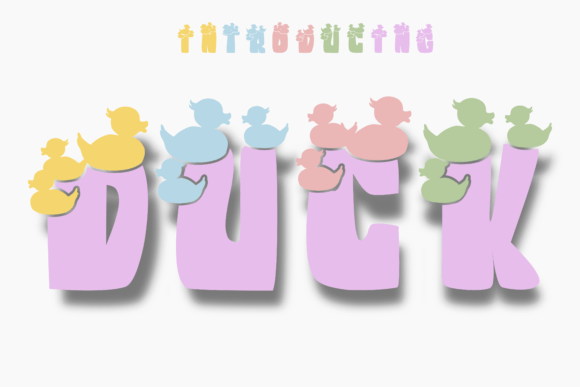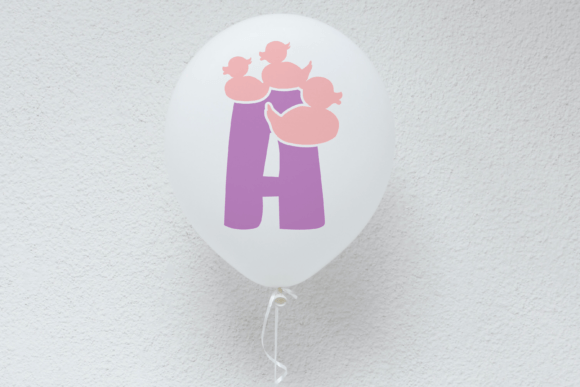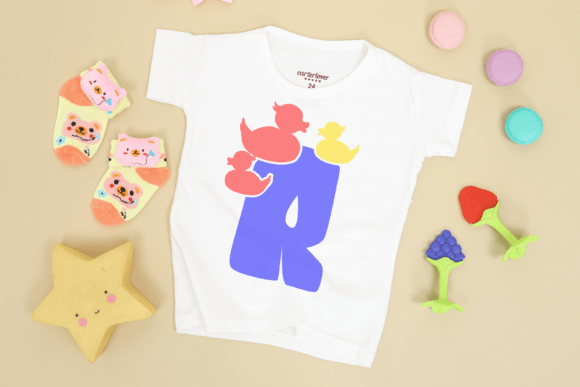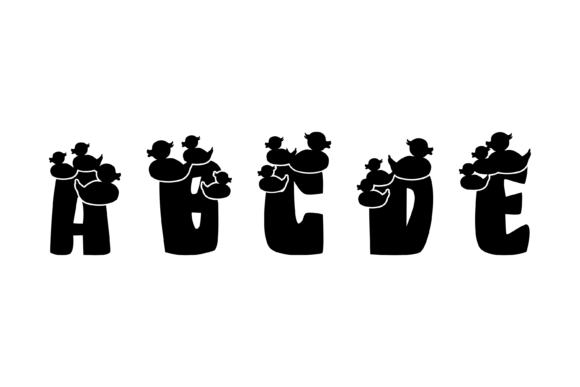
The Quacking Good Font You Need to Know
Meet Duck Font, a beautiful and sweet decorative font that adds a touch of freshness and playfulness to any design. Whether you’re working on a formal school project or an informal kid’s activity creation, Duck Font is the perfect companion to bring your ideas to life. Its versatility and charm make it a valuable addition to any designer’s toolkit, and its ease of use makes it accessible to designers of all levels.
- Unique Characteristics: The font’s playful and whimsical design, featuring a stylized duck character, adds a touch of fun and personality to any text-based project.
Duck Font Review
I recently had the chance to work with the “Duck Font” and I must say, it’s a mixed bag. On the one hand, there are some aspects that really shine ✨.
- Unique Design: The duck font has a quirky, playful design that can add a fun touch to your designs. It’s perfect for children’s books, nursery decorations, or even a cartoon-themed website.
- Legibility: Despite its whimsical design, the font is surprisingly easy to read. It’s clear and concise, making it suitable for body text or headings.
However, there are some limitations to consider ⚠️:
- Limited Customization: The font’s design is quite rigid, making it difficult to customize or alter. If you need to make significant changes, you might find yourself struggling.
- Size Limitations: The font starts to look a bit pixelated when scaled up or down. It’s best used in medium to small sizes to maintain its quality.
Overall, the “Duck Font” is a fun and playful addition to your design toolkit. While it has its limitations, it’s perfect for projects that require a lighthearted, childlike feel. Just be aware of its size and customization limitations, and you’ll be golden.
For optimal results, use the Duck Font for playful and whimsical designs, such as:
- Party invitations
Duck Font is a playful and whimsical font, but it may not be suitable for every design project. Here are a few alternatives that offer similar characteristics.
Great Vibes is a handwritten script font with a relaxed and casual feel. It’s perfect for designs that require a friendly and approachable tone, such as invitations, social media posts, or blog headers.
Compared to Duck Font, Great Vibes has a more organic and natural look, with subtle imperfections that add to its charm. It’s a great choice for designers who want to create a sense of warmth and personality in their designs.
Alex Brush is a beautiful and elegant script font with a sophisticated feel. It’s ideal for designs that require a touch of luxury and refinement, such as branding, advertising, or high-end product packaging.
Unlike Duck Font, Alex Brush has a more refined and polished look, with precise lettering and a classic feel. It’s a great choice for designers who want to create a sense of elegance and sophistication in their designs.
Carolyna Pro is a modern and stylish script font with a bold and confident feel. It’s perfect for designs that require a sense of energy and dynamism, such as posters, flyers, or social media graphics.